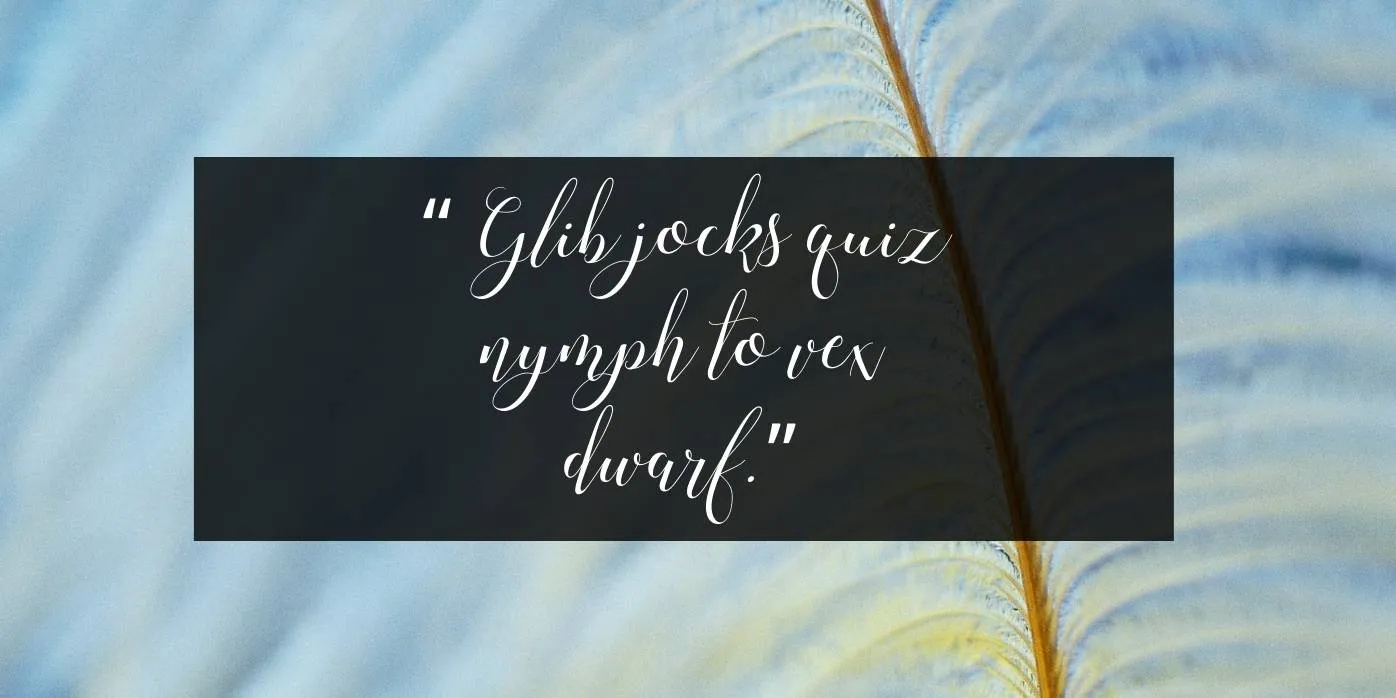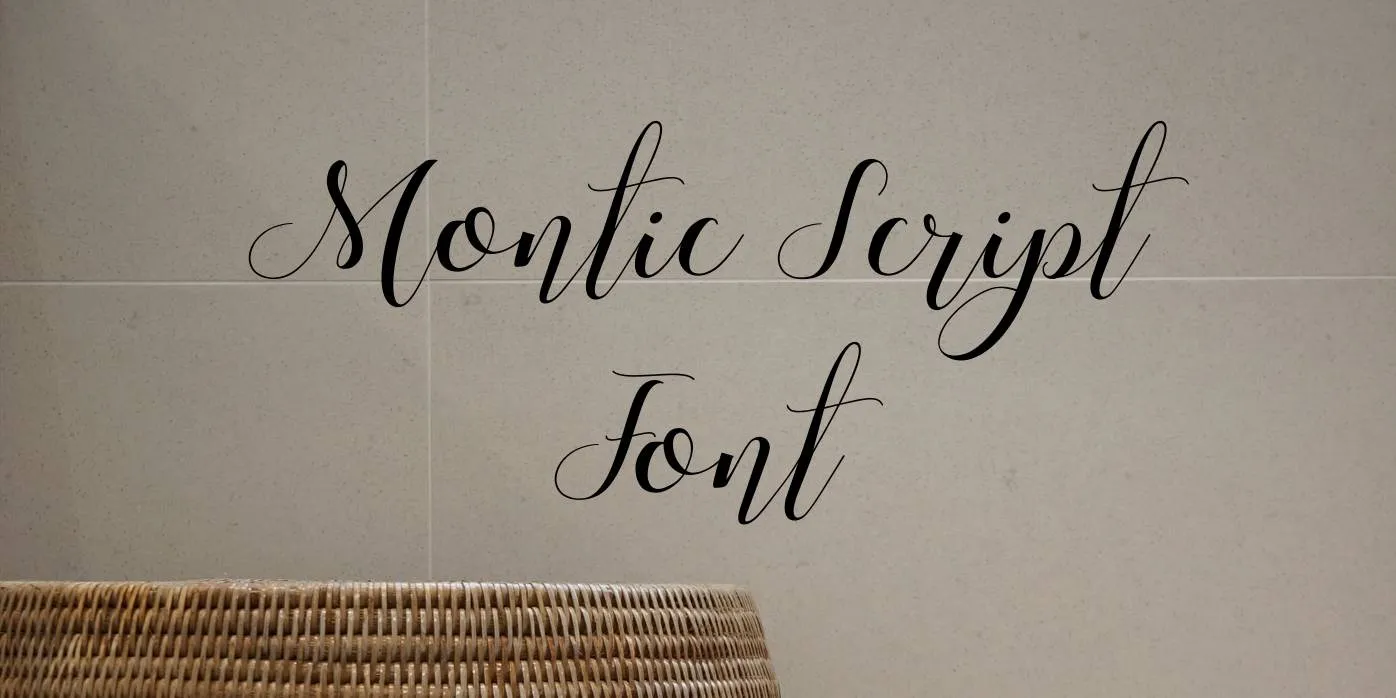
Montic Script Font
We are consulting on a popular typeface that is known by the name Montic Script Font. This typeface belongs calligraphy font family. It was developed by Missinklab Studio. This company is based in Banda Aceh, Indonesia.
This typeface was first released on 11 February 2016. It has a unique style that makes it stand out from the rest. The strokes are sharp and delicate at the same time. The typeface includes upper and lowercase letters, as well as numbers and punctuation marks.
It also supports multilingual characters. Also, its similar Entreaty Font is best for different designs. First, you need to download the Montic Script font family file from our website. Its popularity is based on its hand-letter styles.